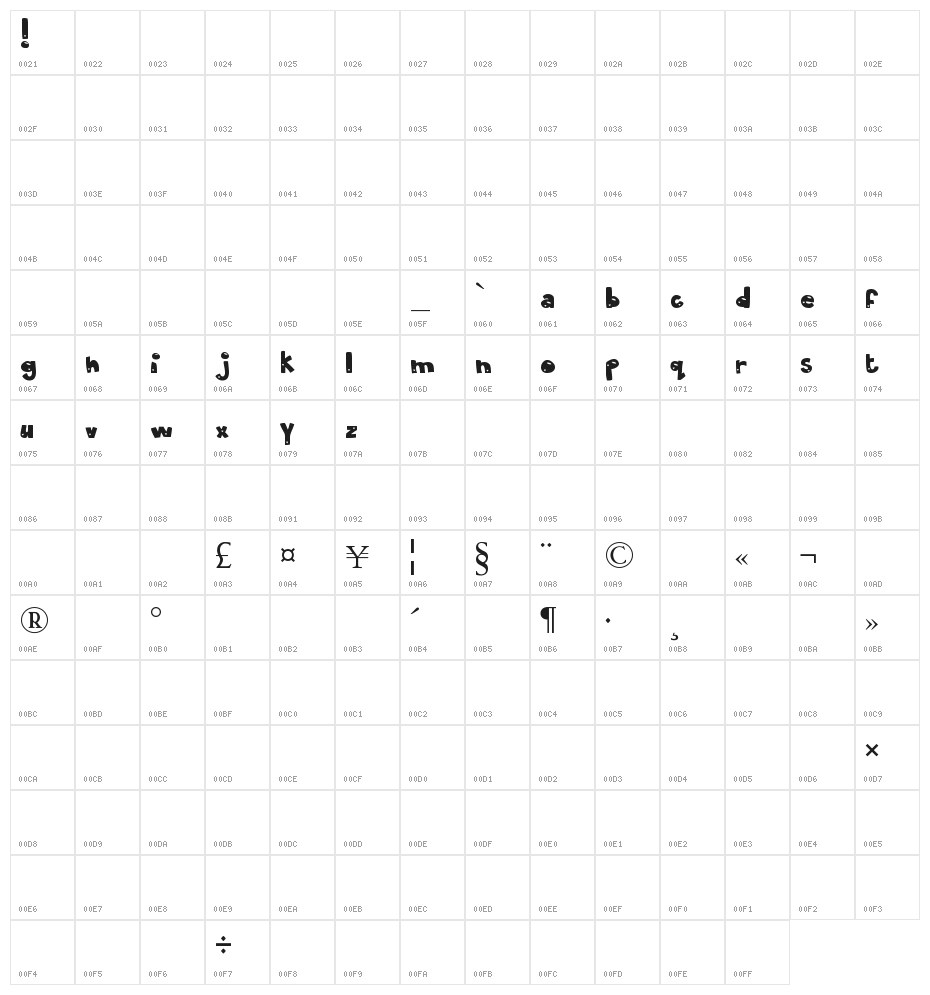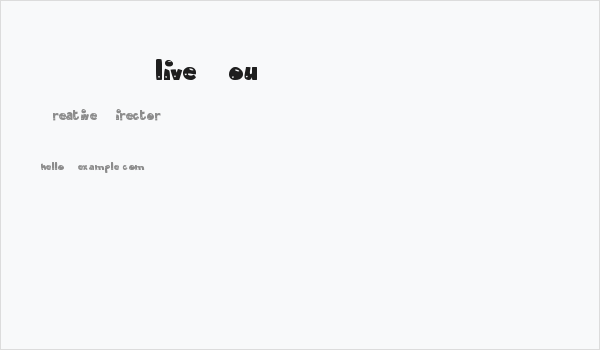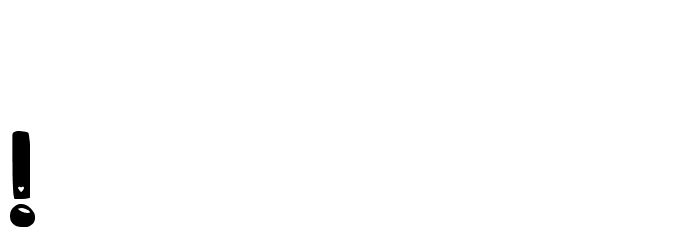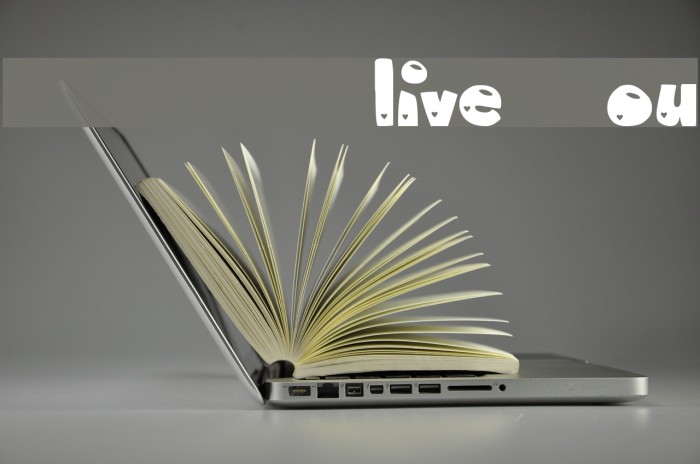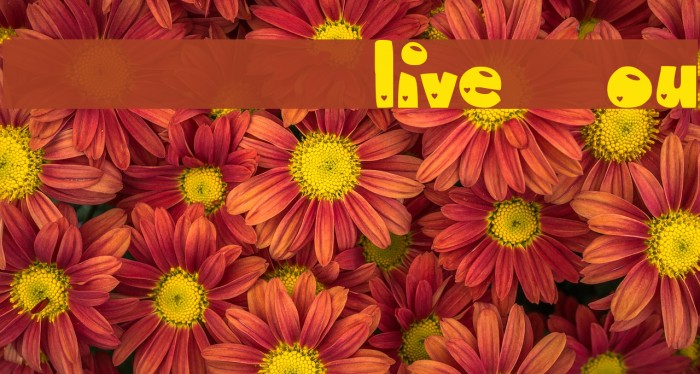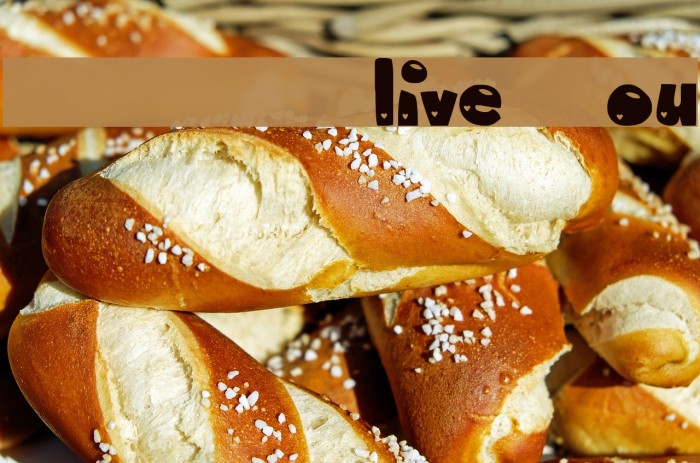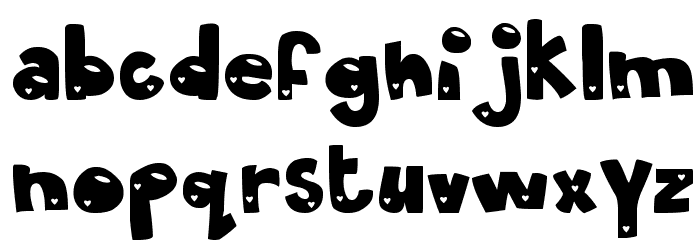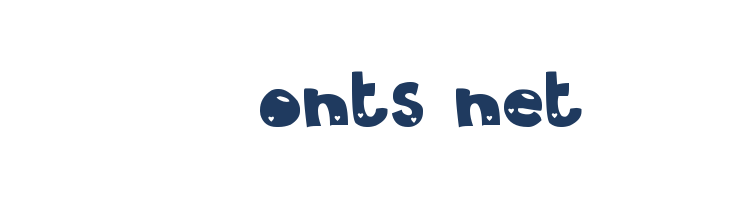
MTF Olive You Font
This playful and whimsical font features bold, rounded characters with a unique twist—each letter is adorned with small heart-shaped cutouts, adding a touch of charm and personality. The font's design is casual and friendly, making it ideal for projects that aim to convey warmth and creativity. Its bold strokes and rounded edges give it a substantial presence, while the heart details provide a delightful visual interest. The font is particularly suited for children's materials, greeting cards, or any design that benefits from a fun and lighthearted aesthetic.
| Use Case | Headlines, Logos, Decorative Text |
| Proposed Projects | Ideal for children's books, greeting cards, playful branding, and creative invitations. |